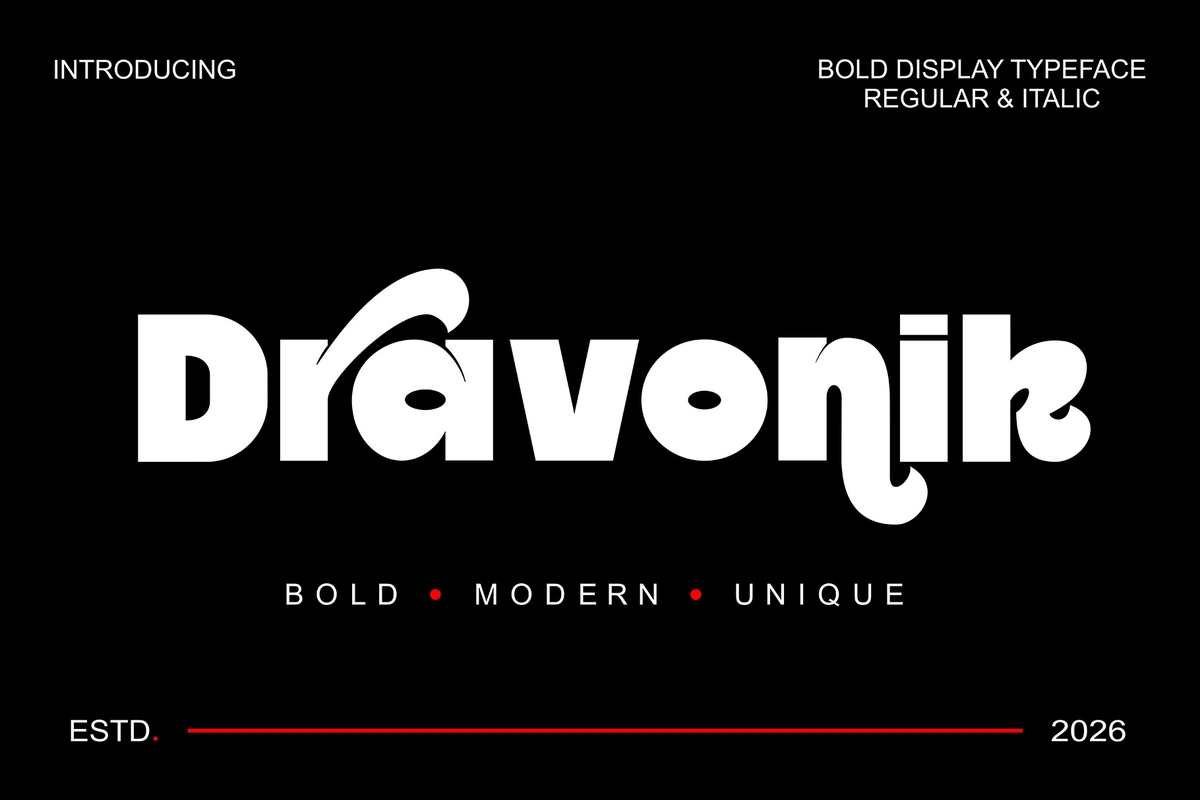
Dravonik
Dravonix, a bold display typeface designed with strong modern character, unique stylistic curves, and eye-catching visual impact. Built for creators who want typography that feels powerful, stylish, and contemporary, Dravonix combines clean geometric structures with expressive letterforms to create a distinctive display font suitable for modern branding and creative headlines. Dravonix delivers a premium bold aesthetic inspired by futuristic typography, modern editorial layouts, luxury branding